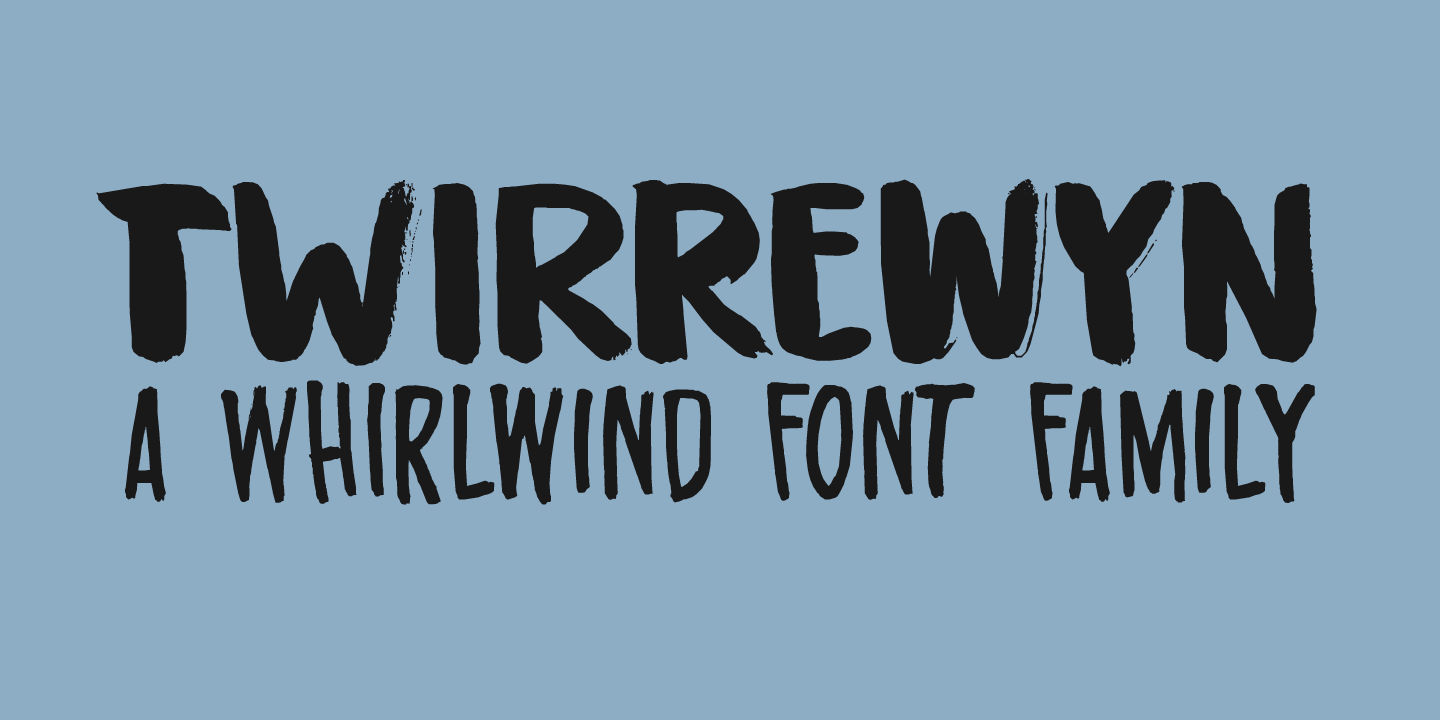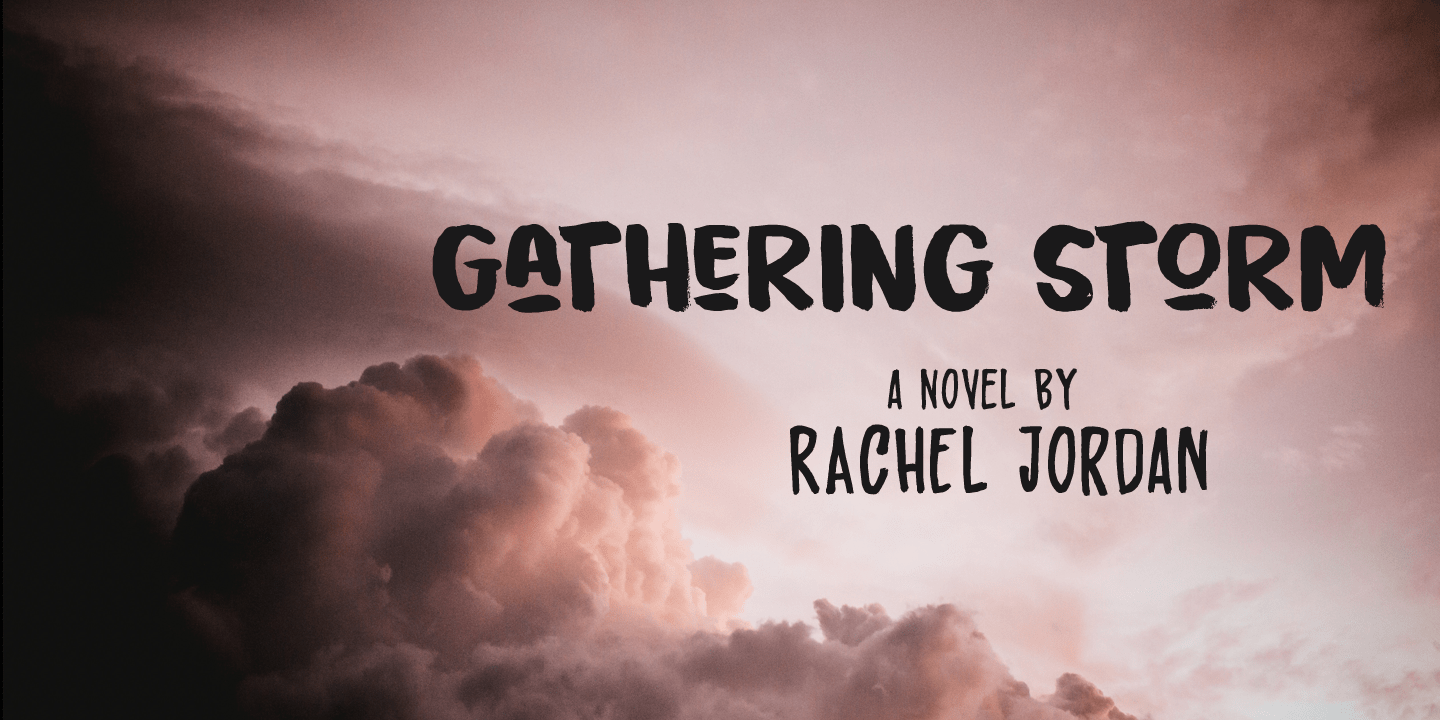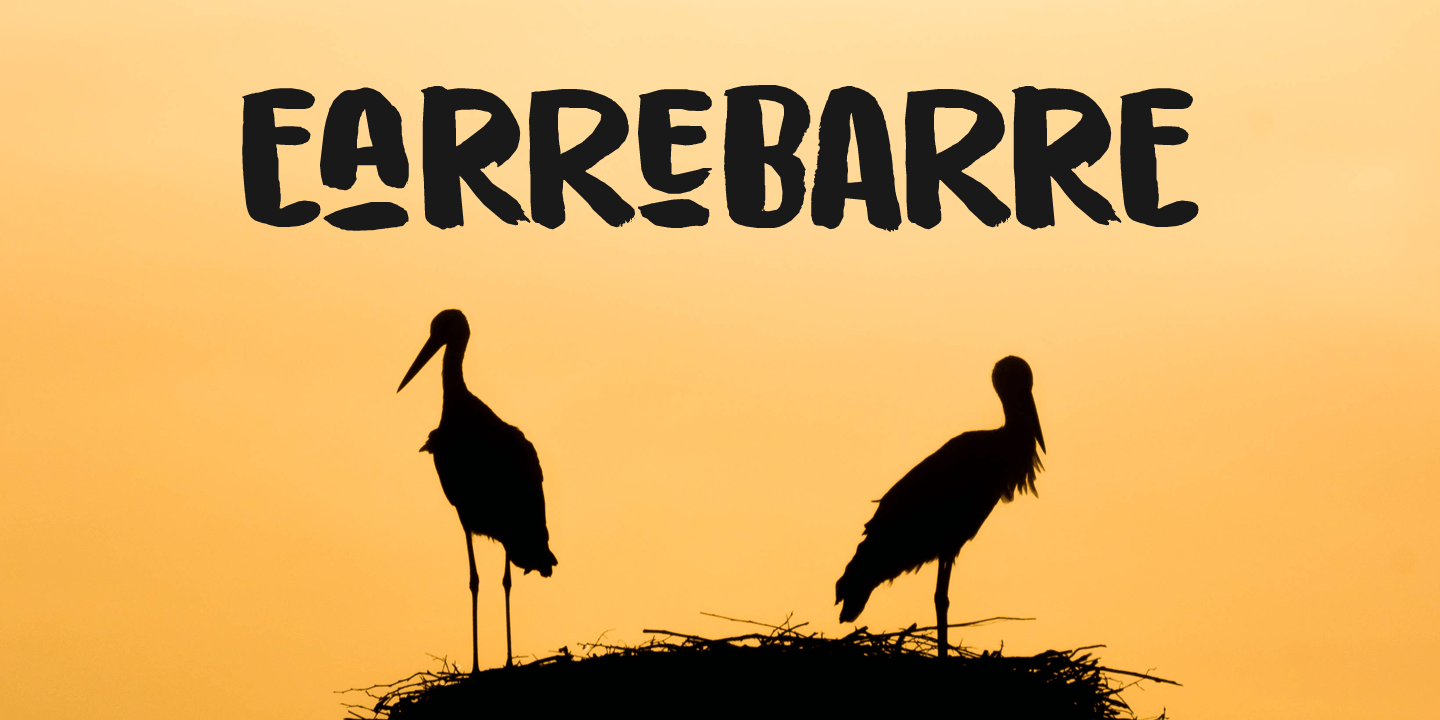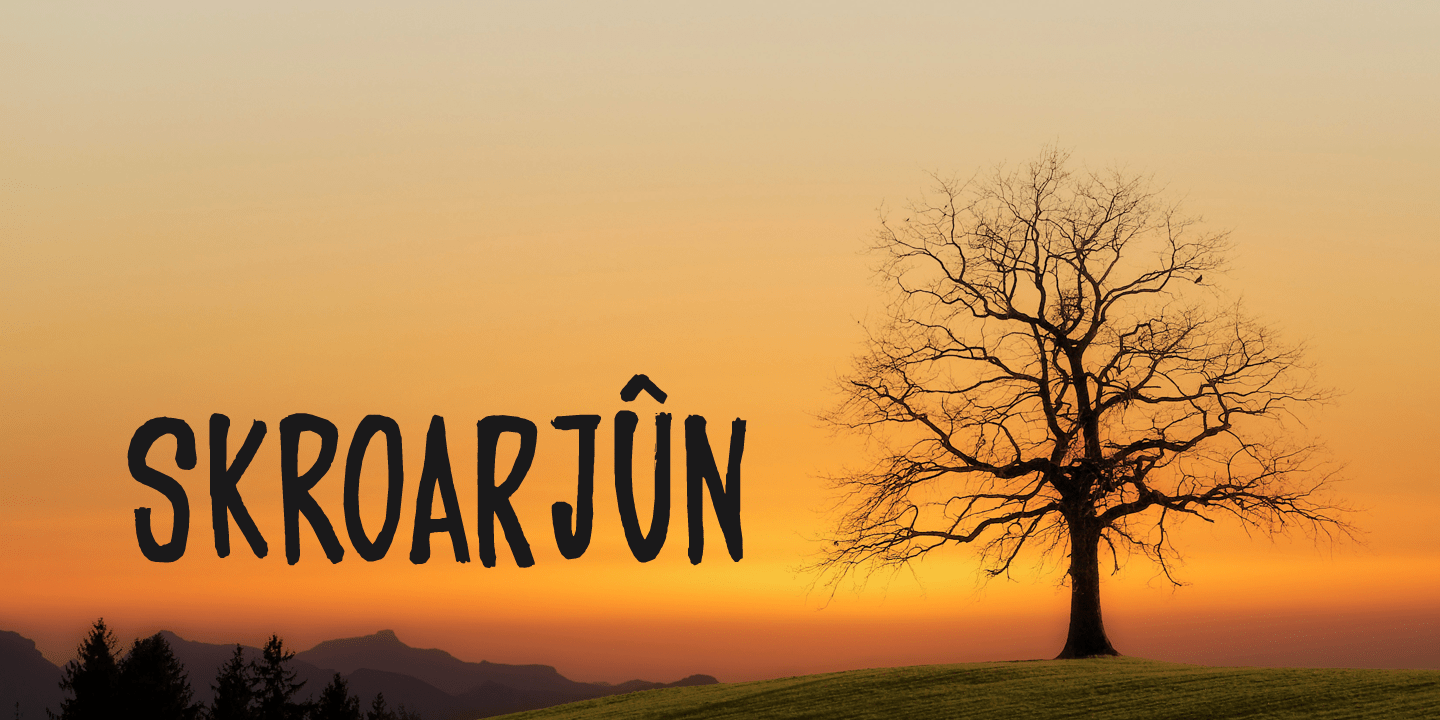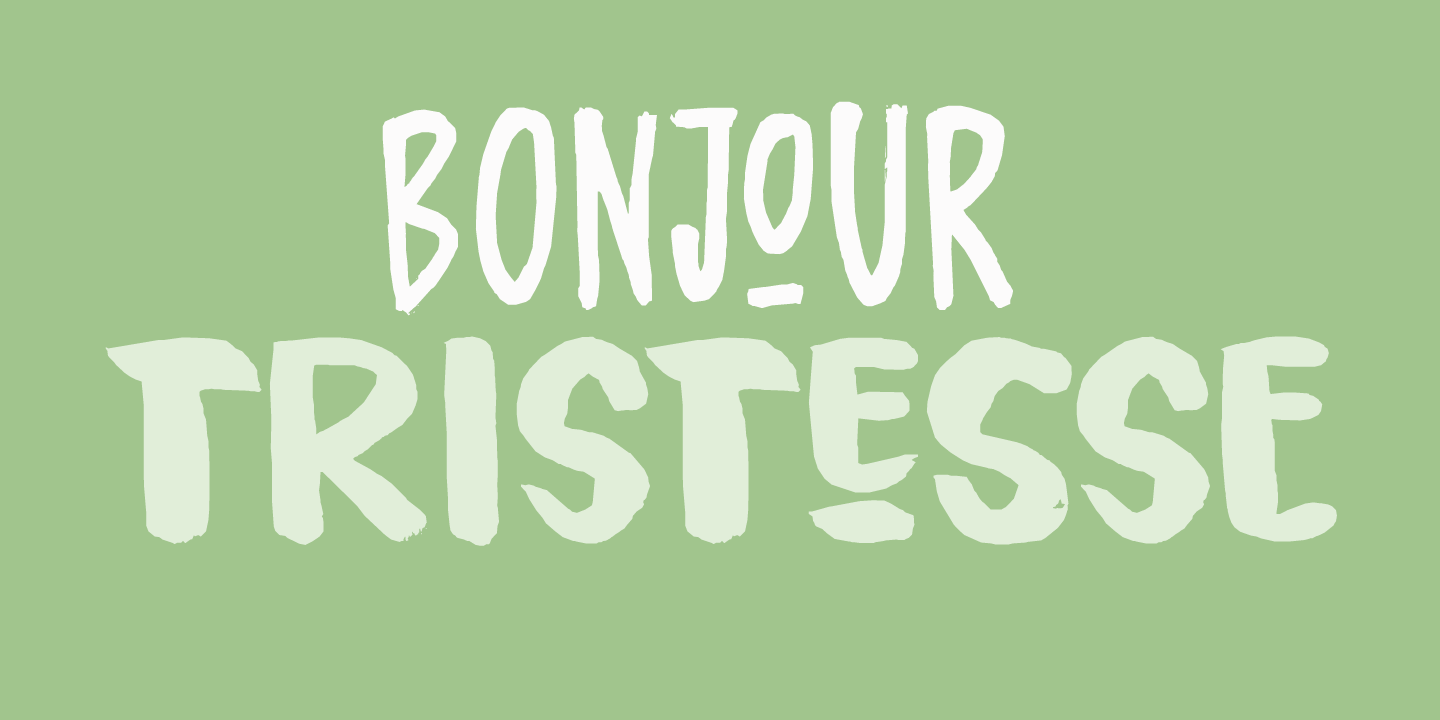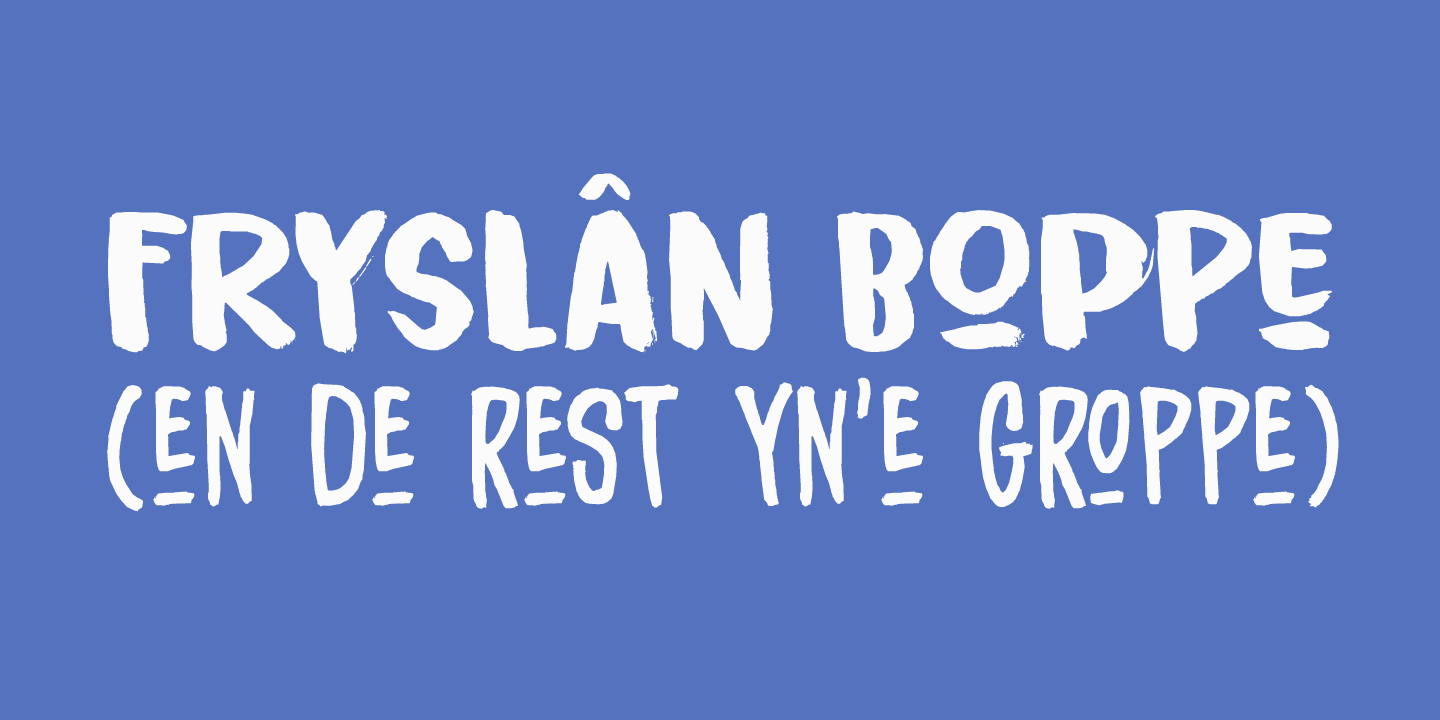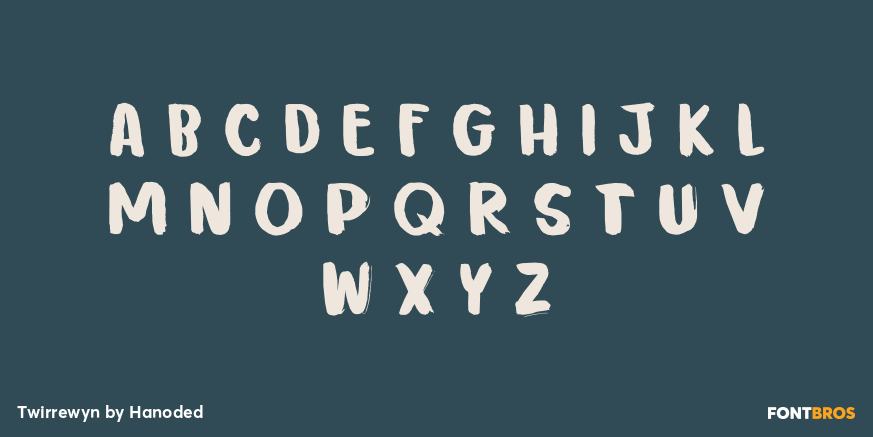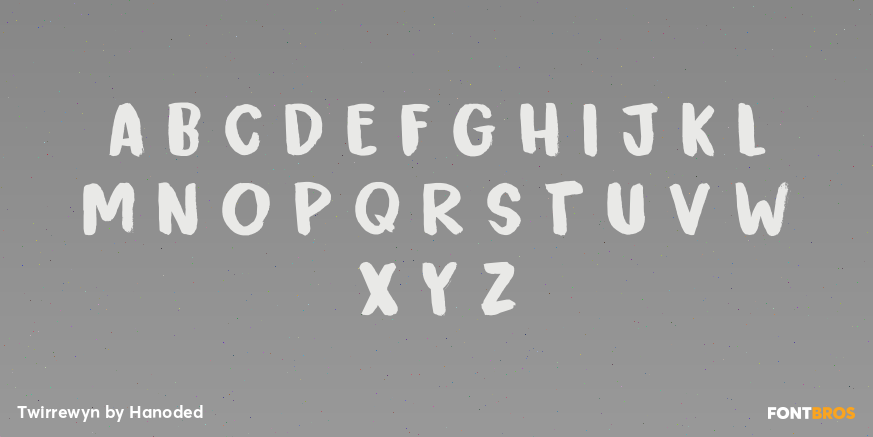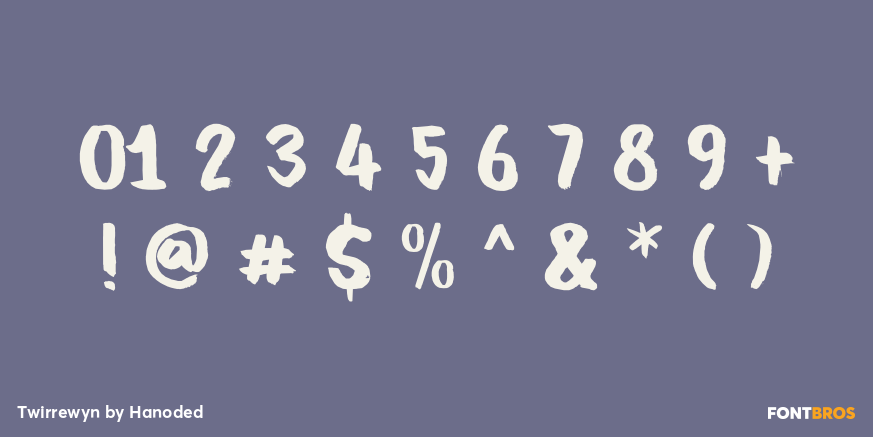
Twirrewyn
Twirrewyn is Frisian for ‘Whirlwind’. I have always liked the Frisian language; it’s like a crossover between English and Dutch. When I studied journalism in Zwolle (a city close to Fryslân) there were a lot of Frisian students and I did pick up a few words!
Twirrewyn is a handmade font family: the fat version was made using a brush and ink; the light version was made using that same ink, but with a broken satay skewer instead of a brush. And yes, you have guessed right, we eat a lot of Satay!